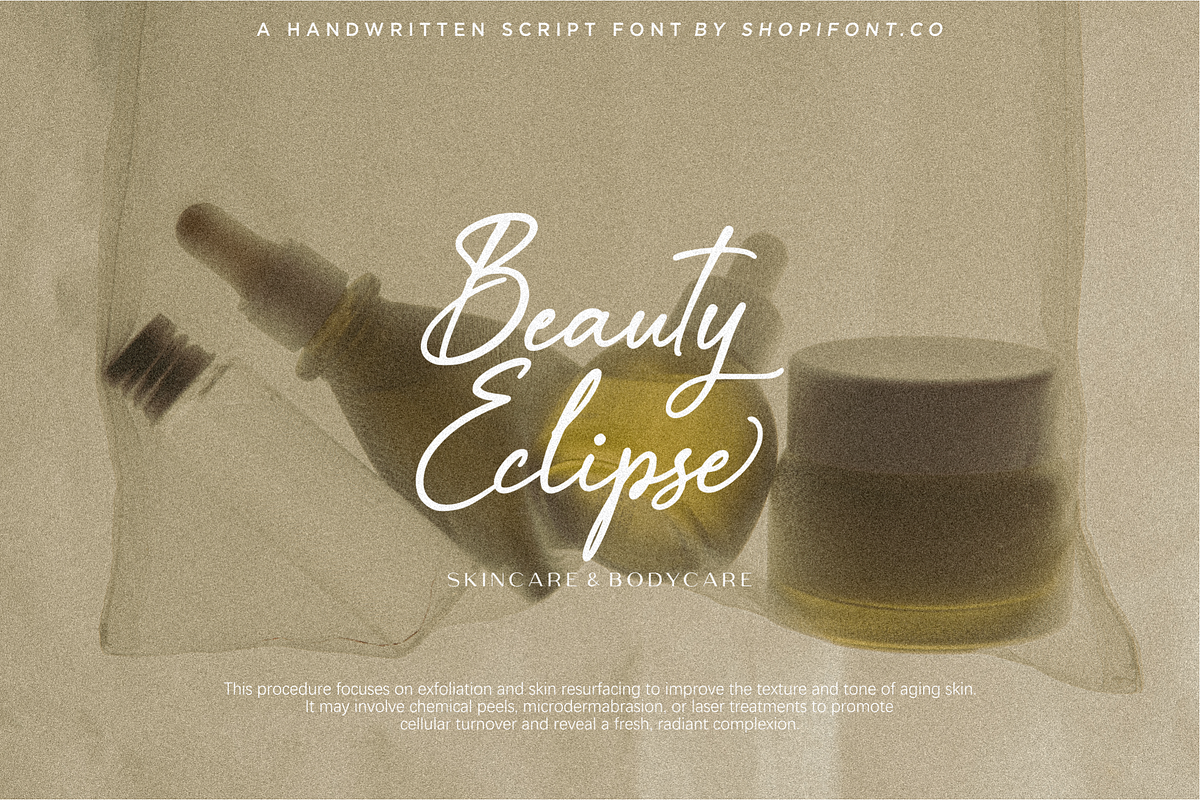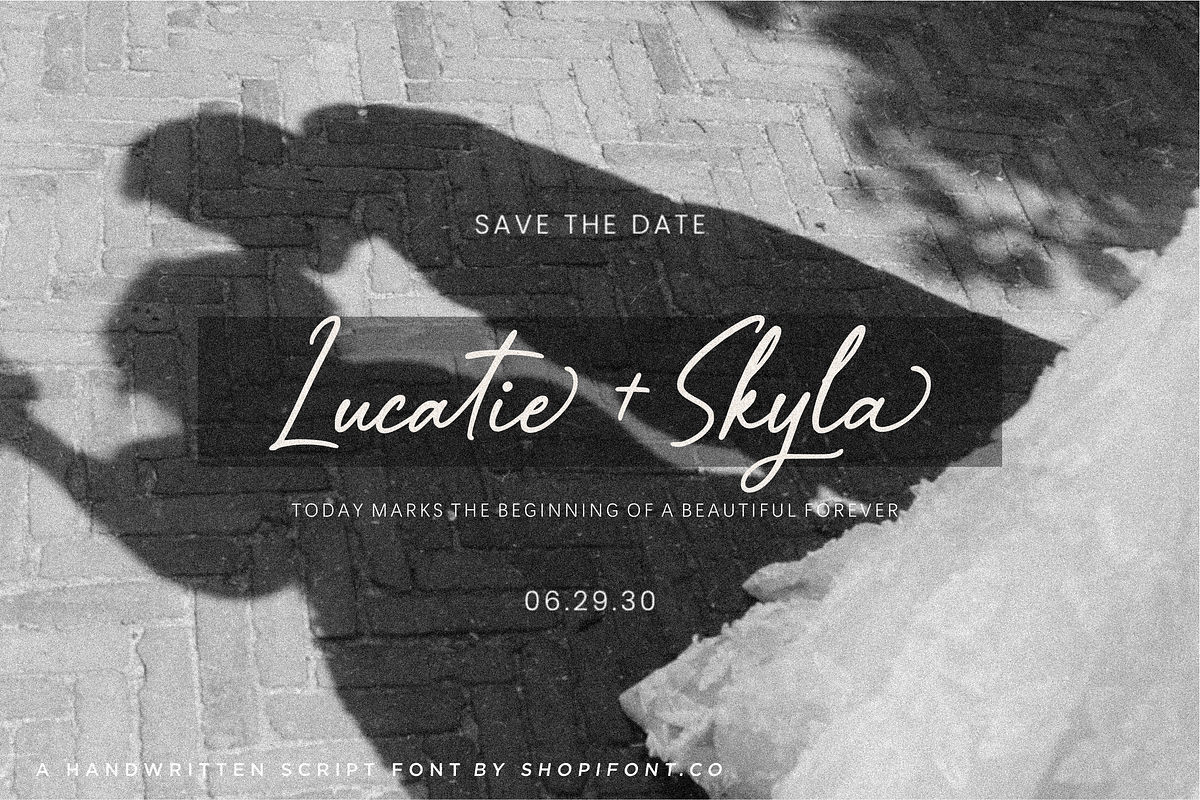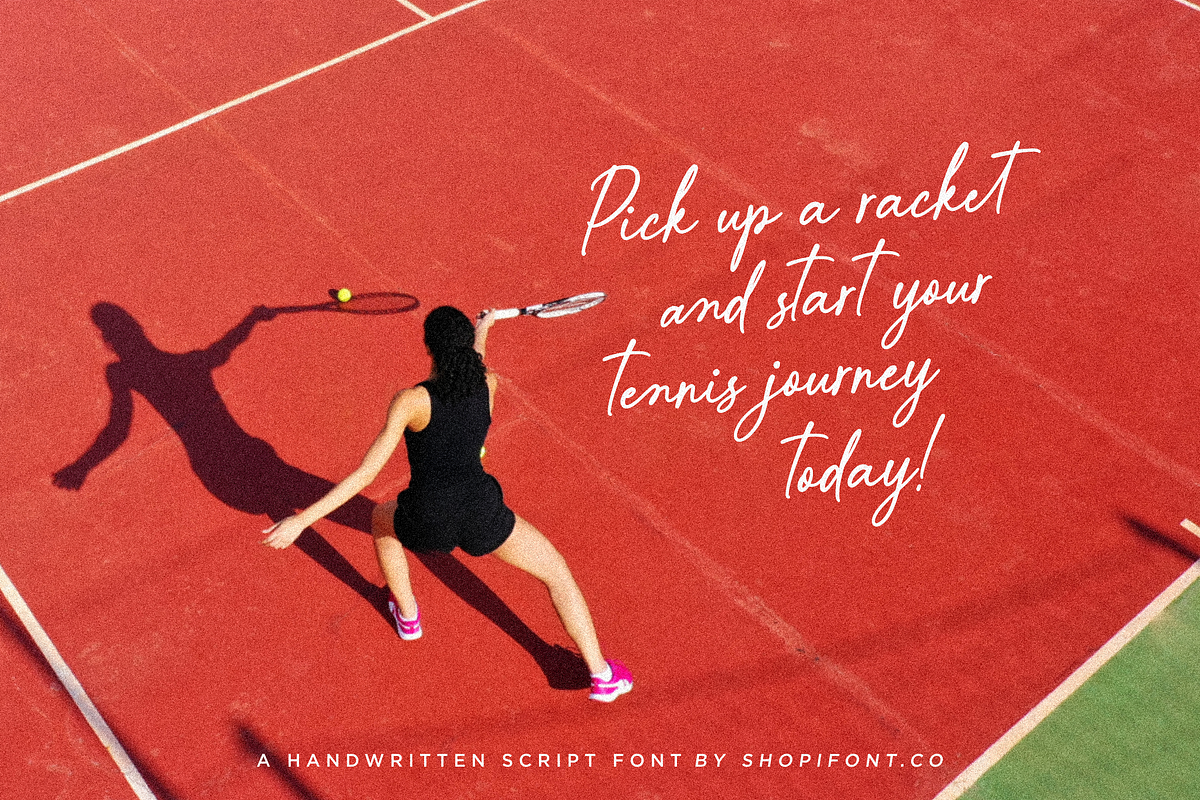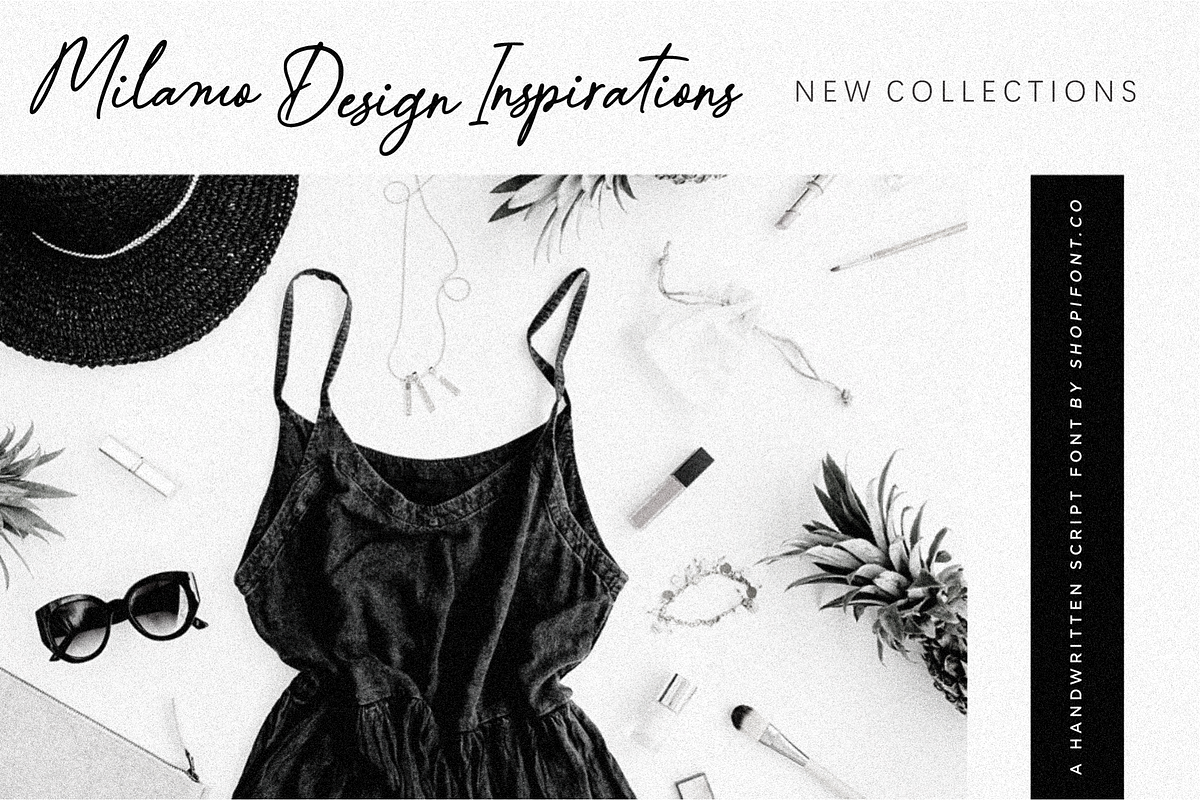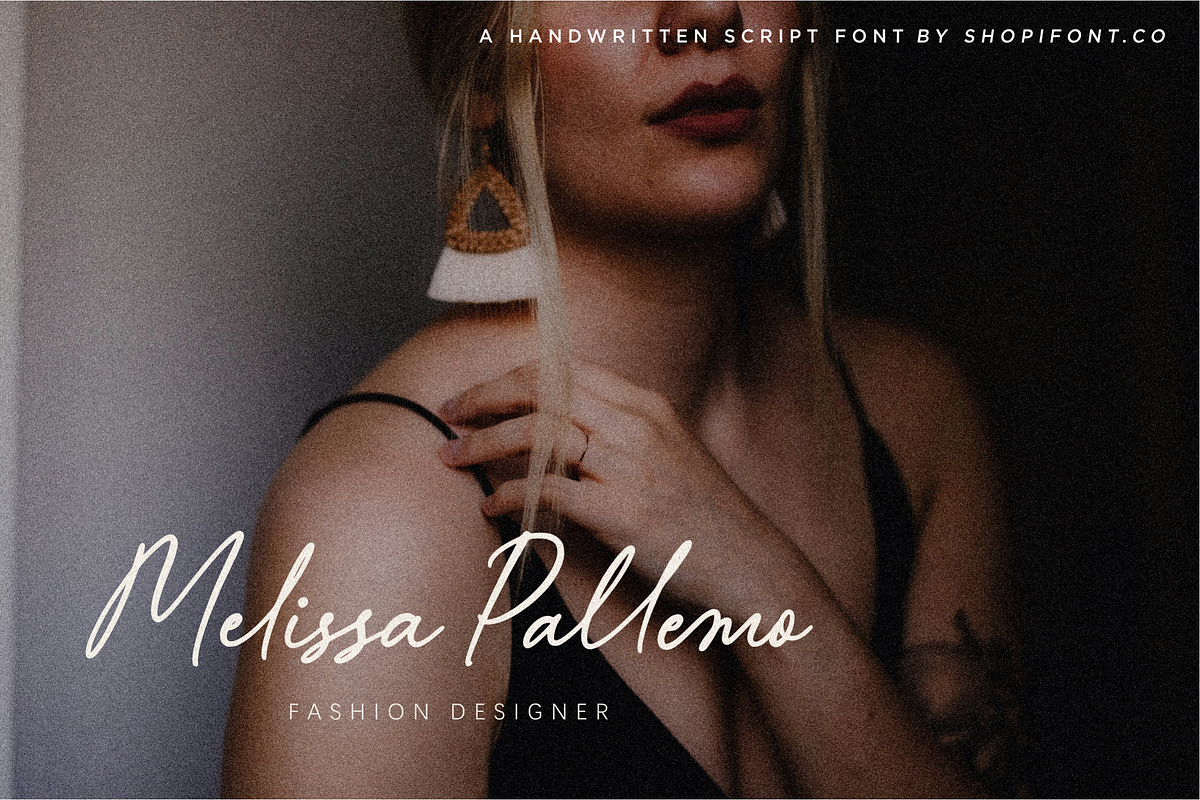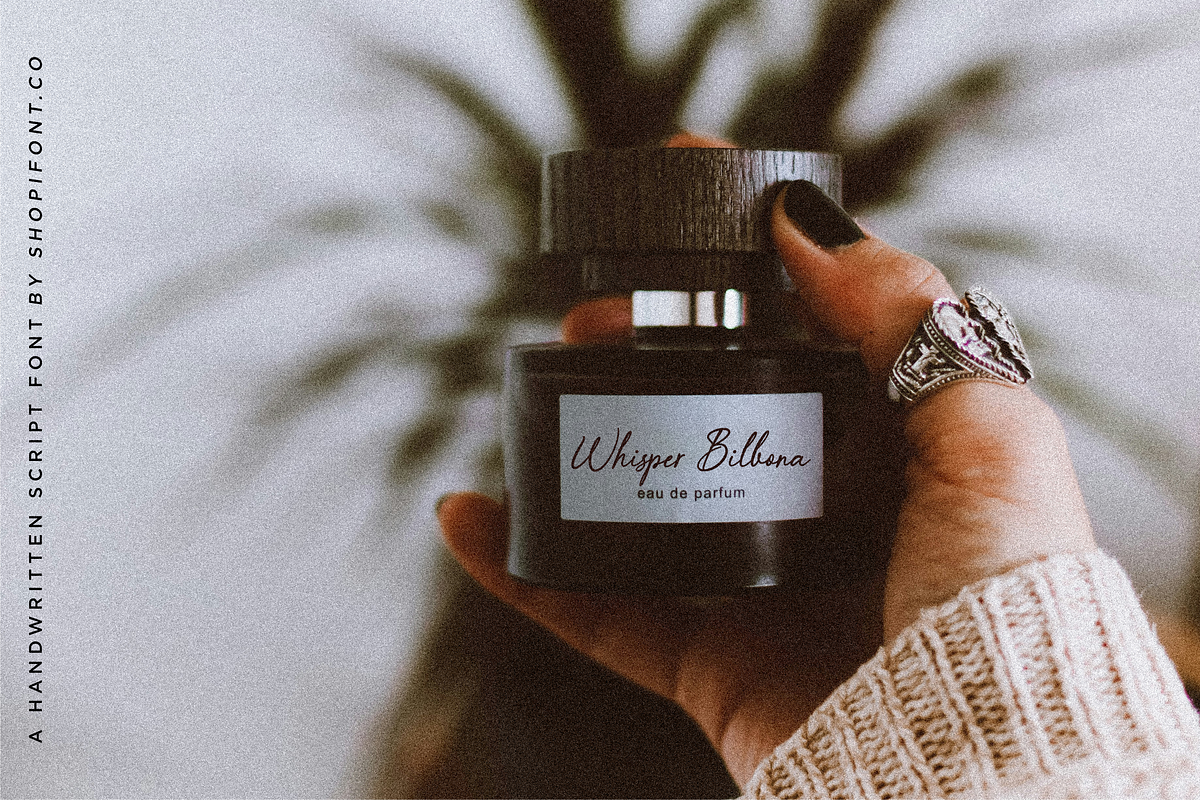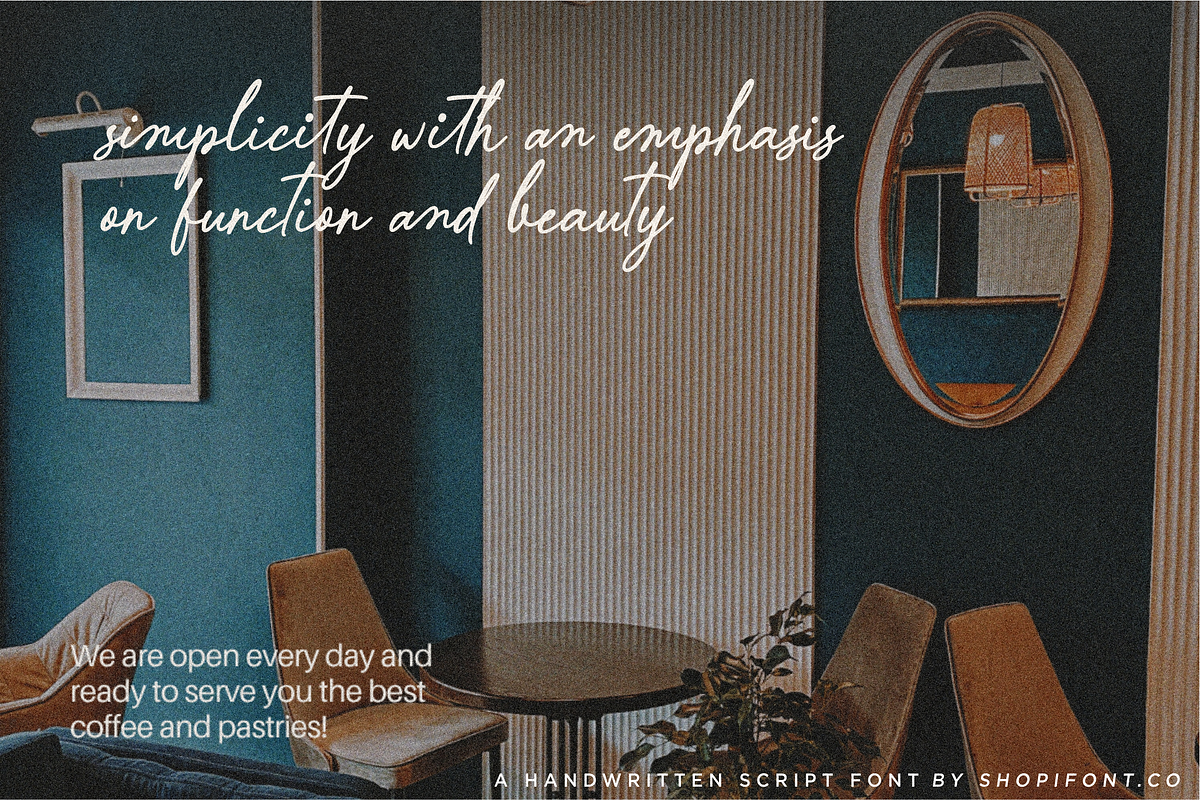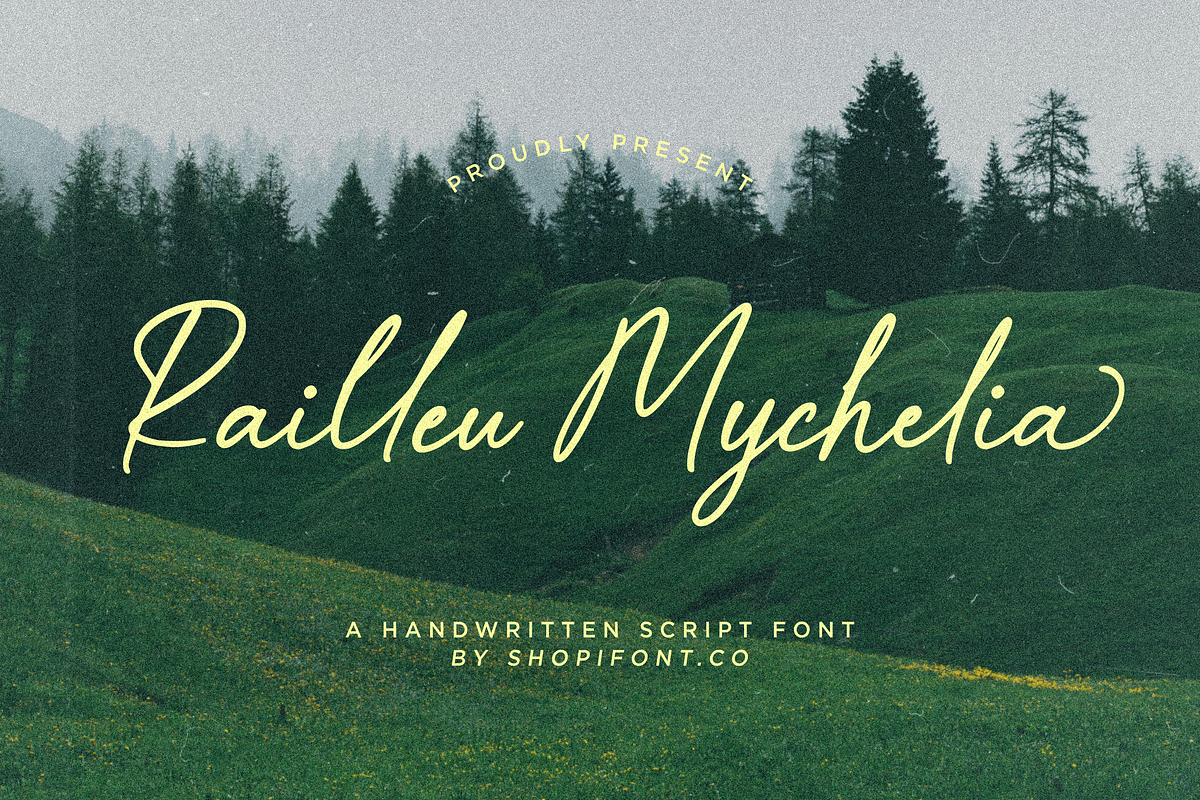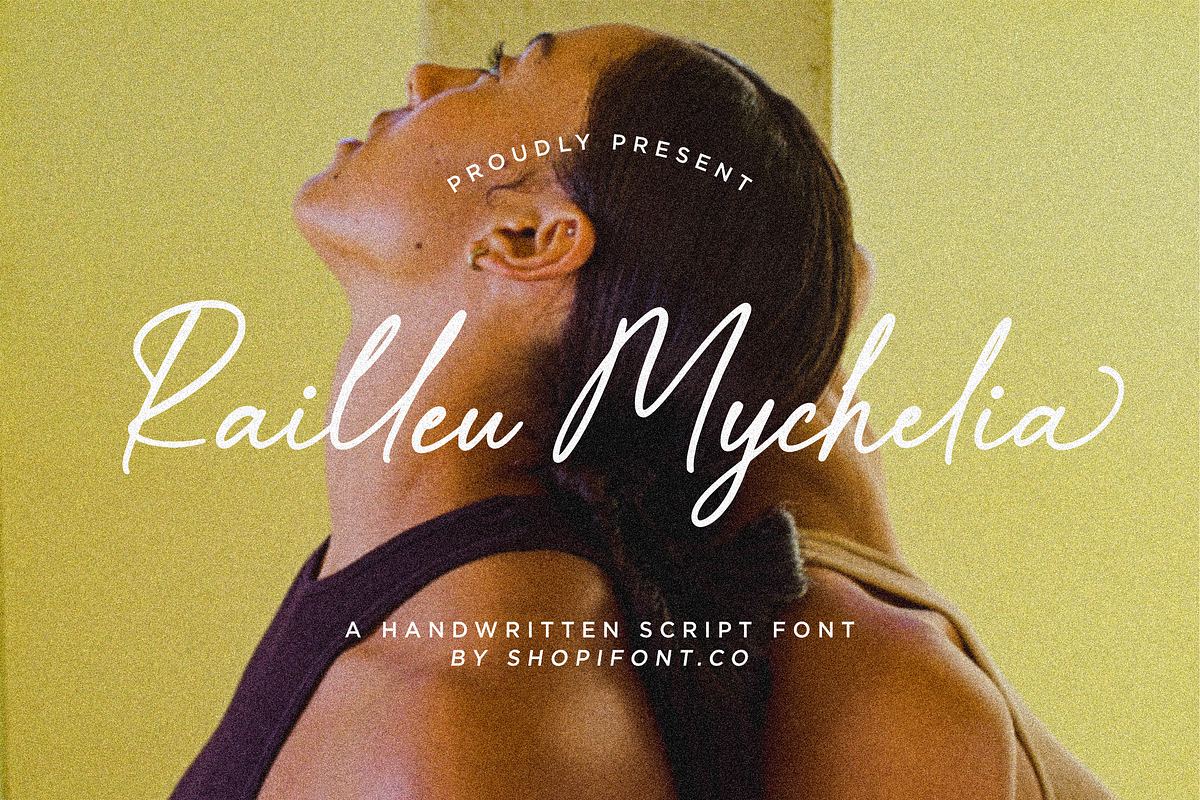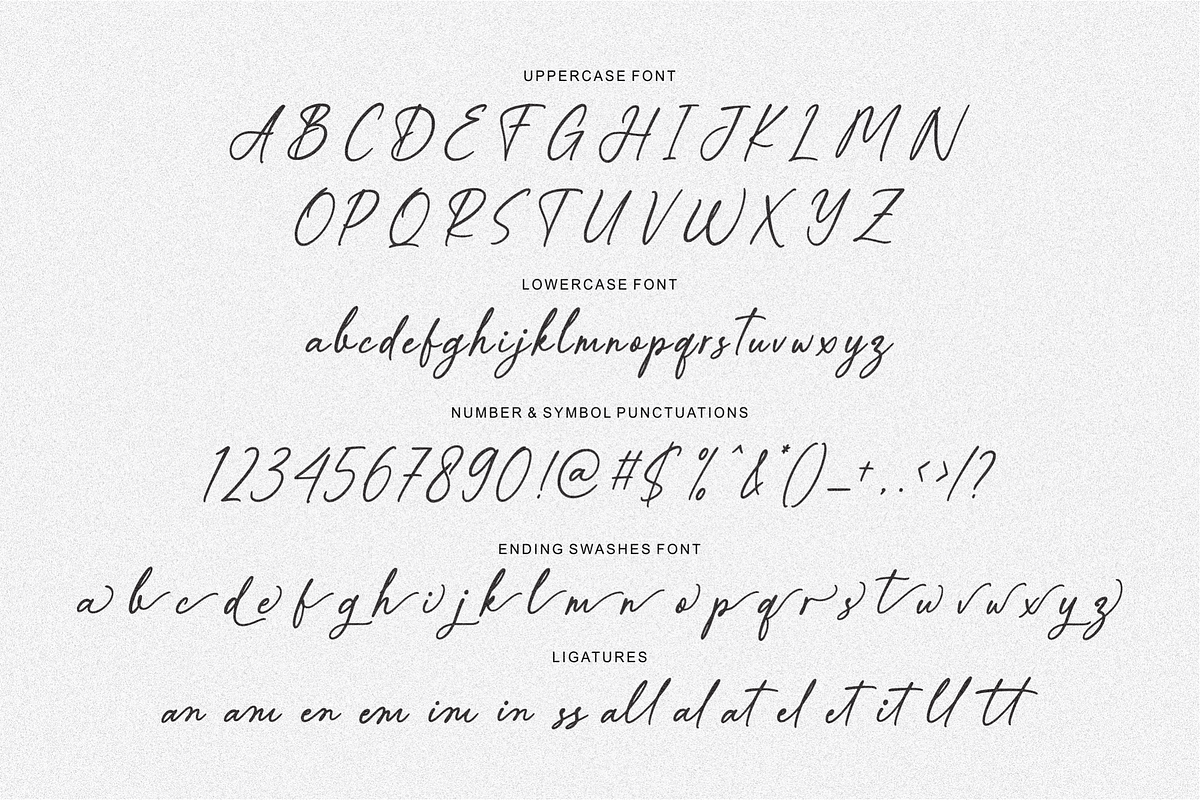
Railleu Mychelia
Introducing by Shopifont.co
Proudly Present, Railleu Mychelia
Railleu Mychelia is A Handwritten Script Font Perfect for wedding, product packaging, branding project, magazine, social media, or just used to express words above the background on your best project.